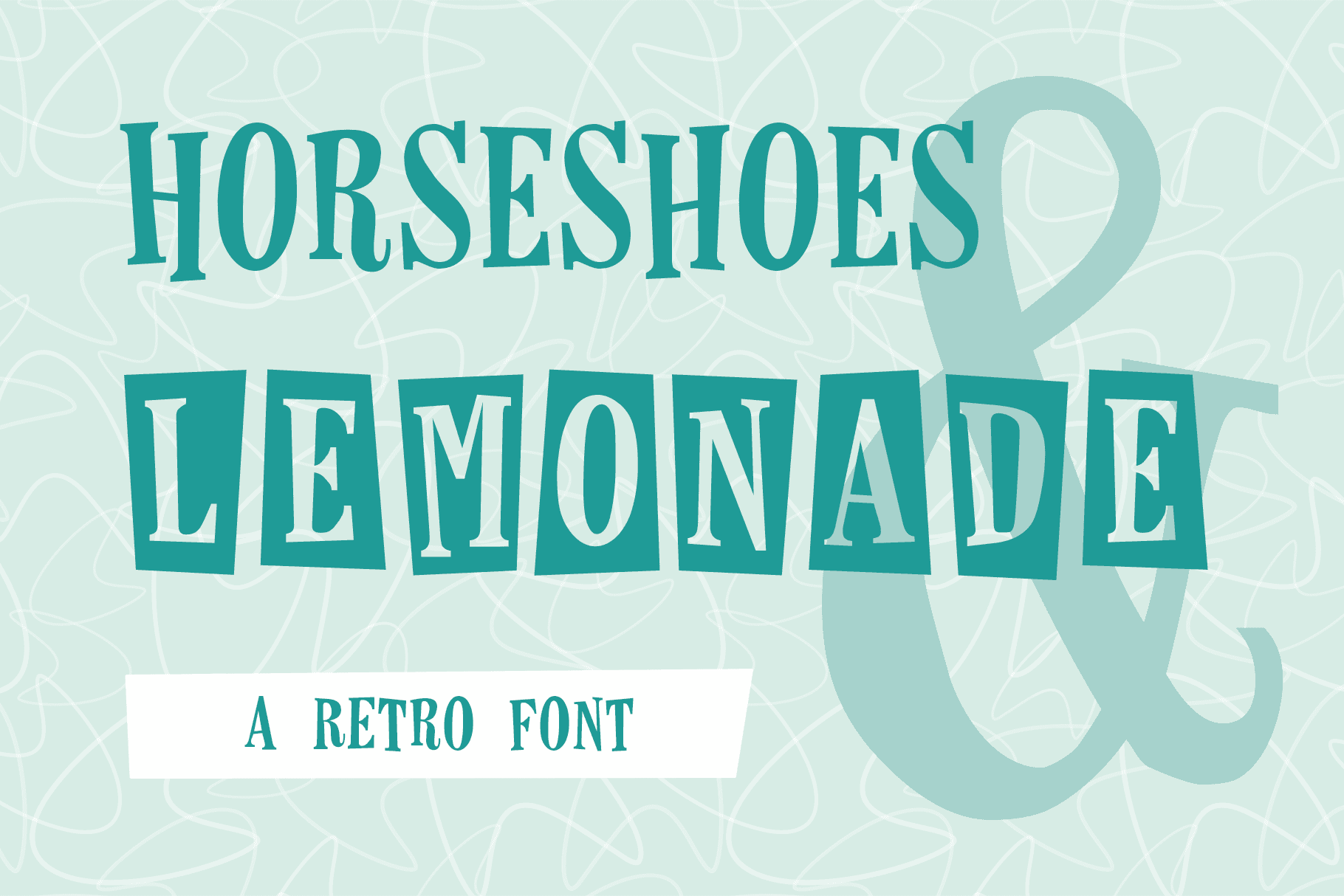
Horseshoes & Lemonade
Inspired by vintage fifties and sixties design and advertising, the original Horseshoes & Lemonade is a serif font with exaggerated angles and an uneven rectangle background motif popular at the time. Although this font contains capital letters only, the lowercase characters offer variations and alternating between the two can create a more playful look.
Since the initial release, the family has grown with the additions of Horseshoes and Horseshoes Outline — letter only versions without the backgrounds. It was also updated in 2024 to improve kerning and make minor tweaks to characters that felt a little awkward.